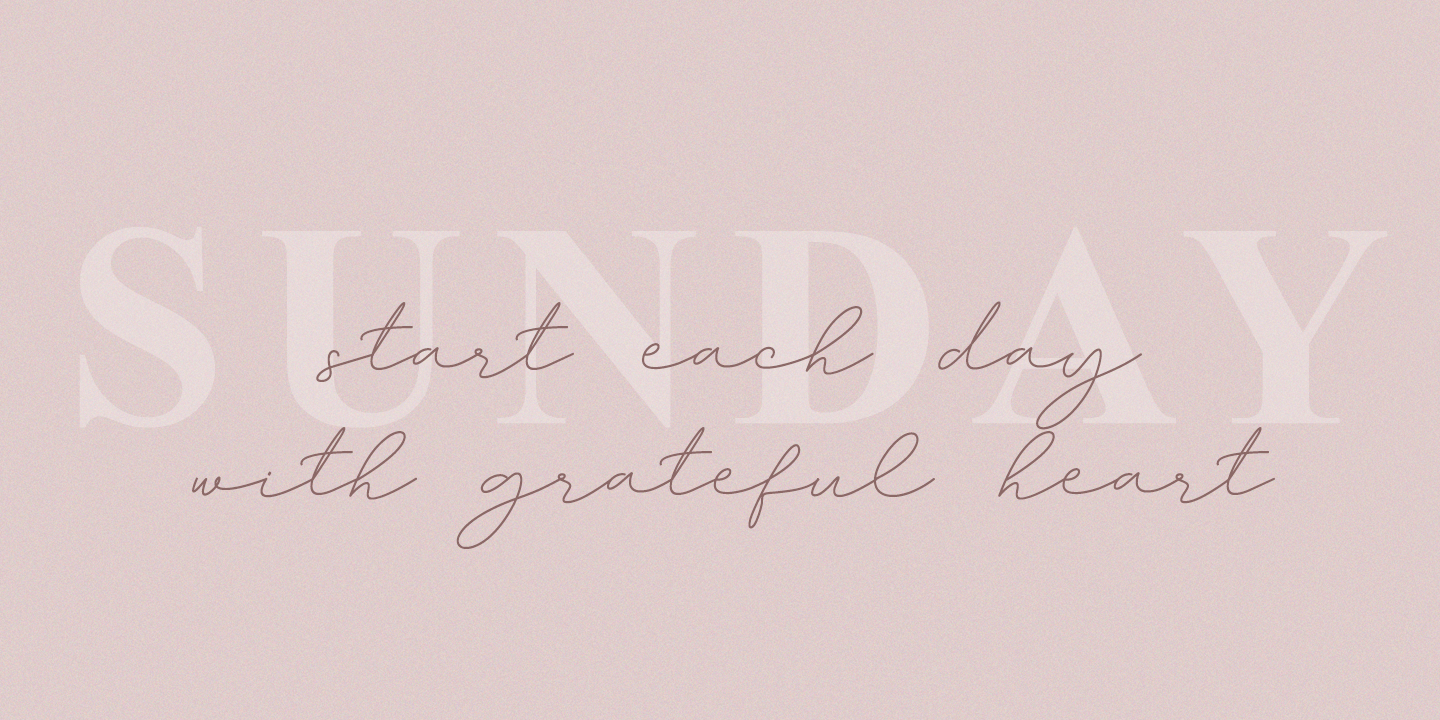
Amalina Script Font Free Download is a beautifully flowing script typeface that exudes elegance and sophistication. Perfect for wedding invitations, branding, logos, greeting cards, and stylish editorial designs, Amalina brings a personal, handcrafted feel to any project.
Its smooth, connected strokes and delicate curves create a natural handwriting effect, making your text feel warm and inviting. Whether used for headlines, quotes, or signature logos, Amalina Script Font Free Download adds a touch of romance and refinement.